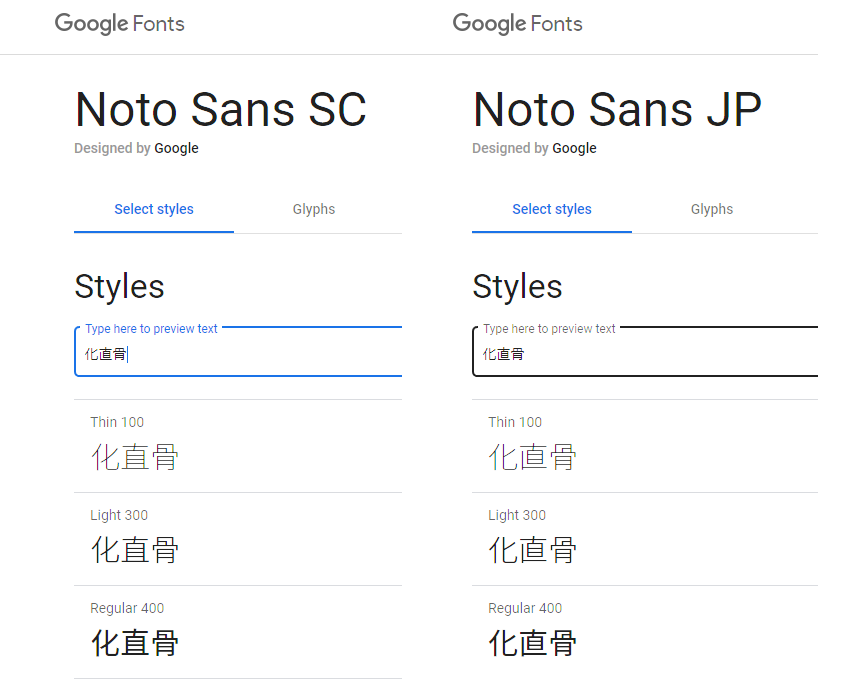
nsk_ Posted June 17, 2020 Share Posted June 17, 2020 I found Japanese translation data(data.zip/fonts/notosans_jp_sdf.zip/font.fnt) using Chinese(simplified Chinese) font face. Quote <info face="Noto Sans CJK SC Regular" size="70" bold="0" italic="0" charset="" unicode="1" stretchH="100" smooth="0" aa="1" padding="8,8,8,8" spacing="0,0" outline="0" /> Would you please change font face "Noto Sans CJK SC Regular" to "Noto Sans CJK JP Regular"? Most Japanese has awkward feeling to simplified Chinese font face. (ex. following image) (I think most Chinese has same feeling when it uses Noto Sans CJK JP Regular font face in Chinese translation.) Link to comment https://forums.kleientertainment.com/forums/topic/119180-suggestion-changing-font-face/ Share on other sites More sharing options...